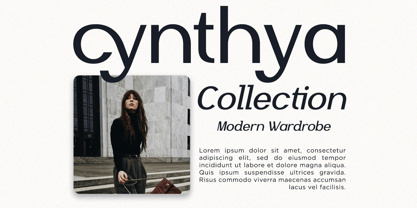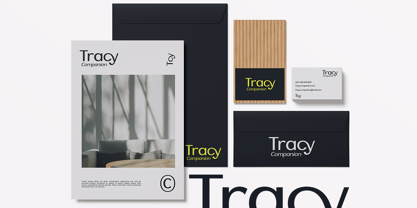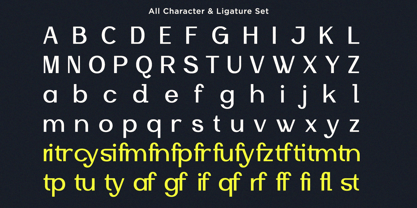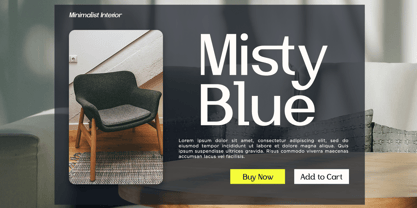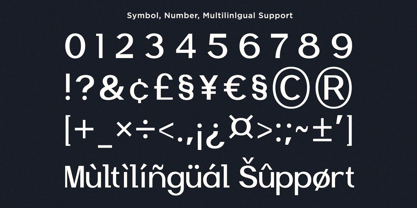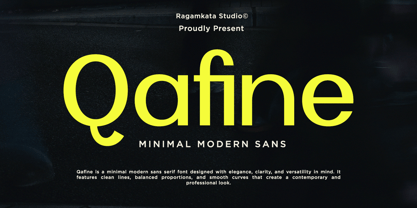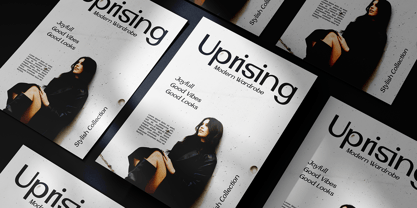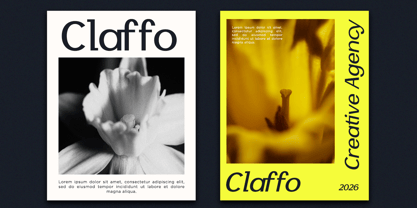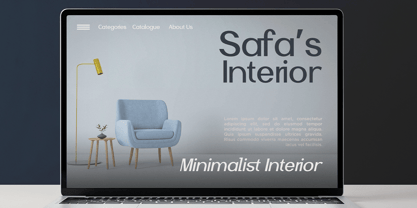
Qafine
por RagamKata
La familia tipográfica Qafine fue diseñada por Yogiswhara Dio Prakoso Riadi y publicada por RagamKata. Qafine contiene 2 estilos y opciones de paquete familiar. Más información sobre esta familia
Qafine is a minimal modern sans serif font designed with elegance, clarity, and versatility in mind. It features clean lines, balanced proportions, and smooth curves that create a contemporary and professional look. Qafine is crafted to work beautifully across both digital and print media, making it a reliable choice for modern design needs. This font includes stylish ligatures that add a refined typographic touch and improve visual flow, especially in branding and headline usage. Whether you’re building a bold brand identity or a clean editorial layout, Qafine delivers a confident and modern aesthetic. Perfect for branding, logo design, headlines, posters, editorial design, website design, UI/UX, social media graphics, packaging, advertising, presentation slides, and modern print layouts. With its diverse weights and OpenType features, Qafine is ideal for a wide range of applications, ensuring your designs stand out with sophistication and style. Thank You for your Visit ! Ragamkata
Diseñadores: Yogiswhara Dio Prakoso Riadi
Fundición: RagamKata